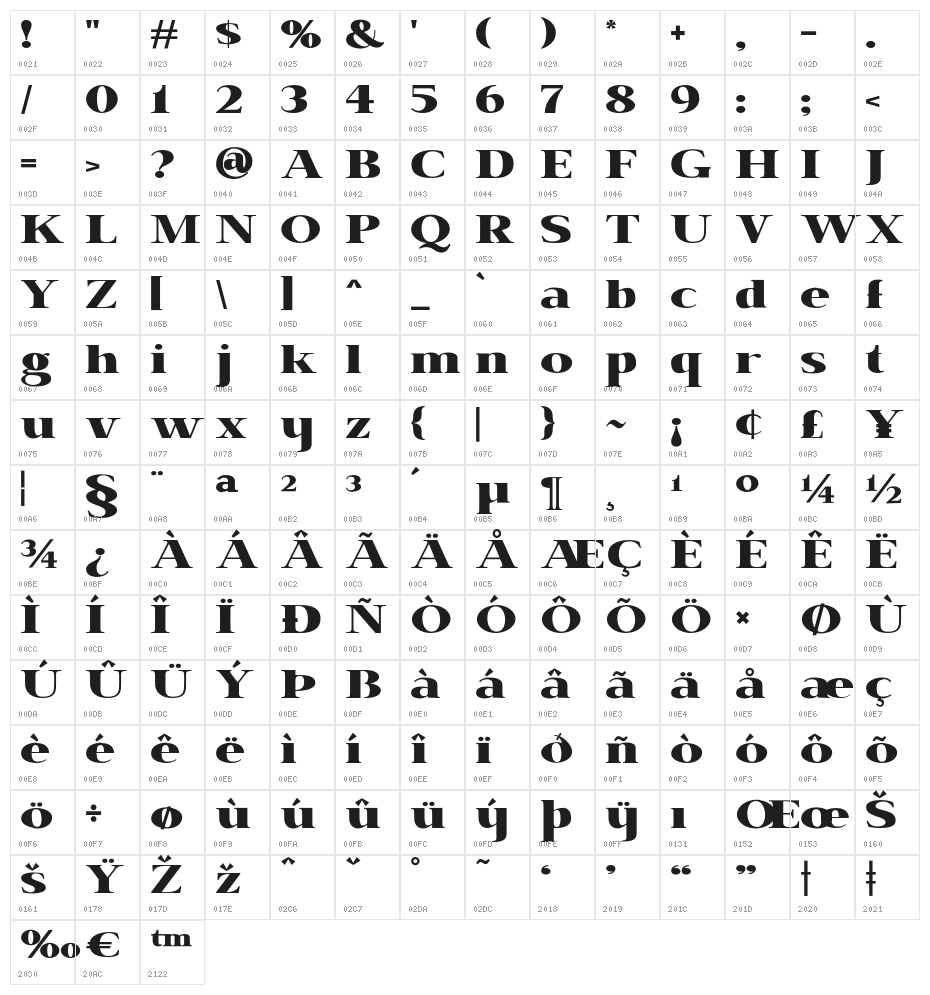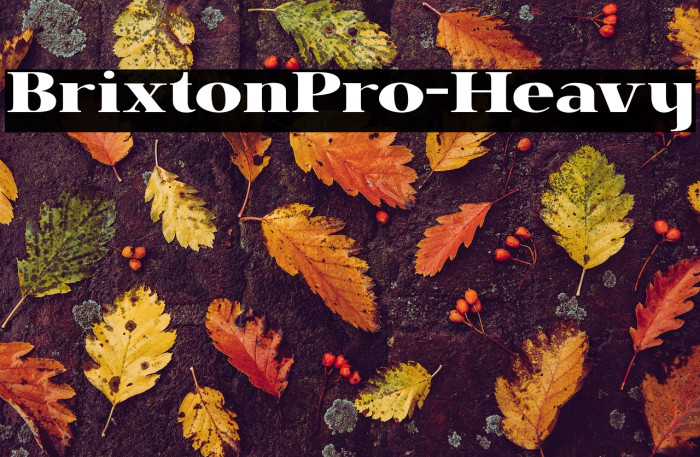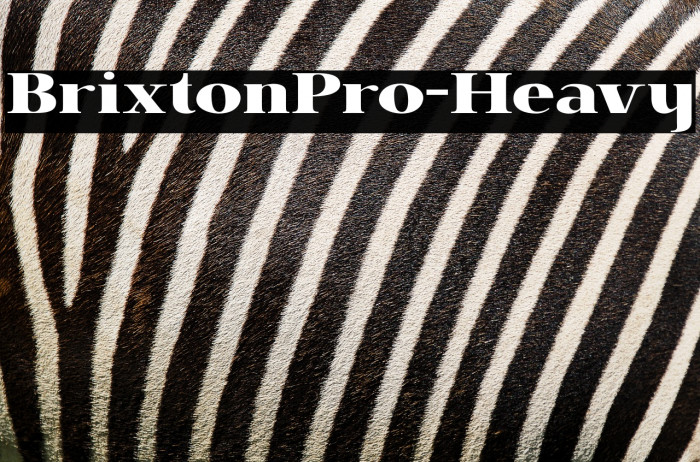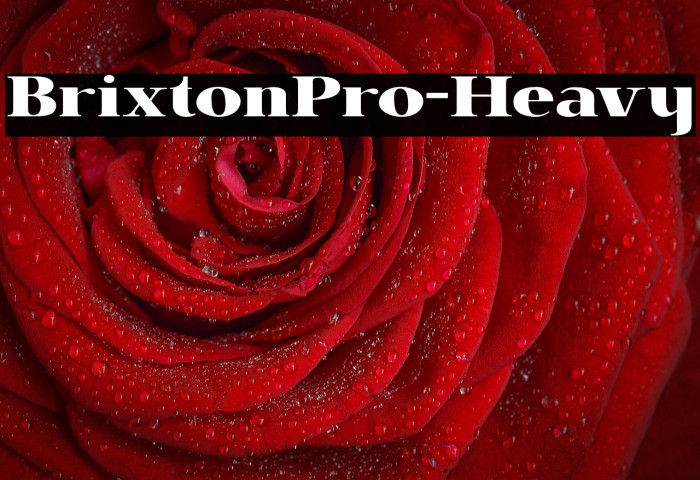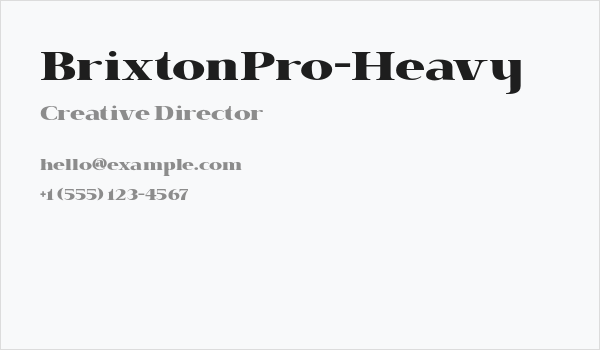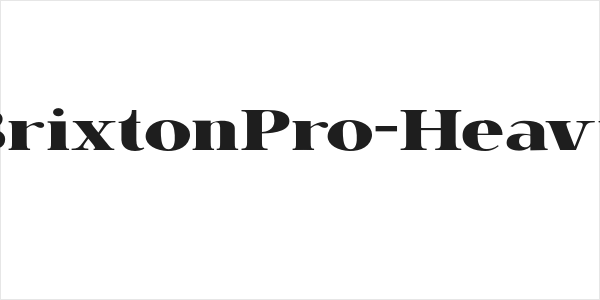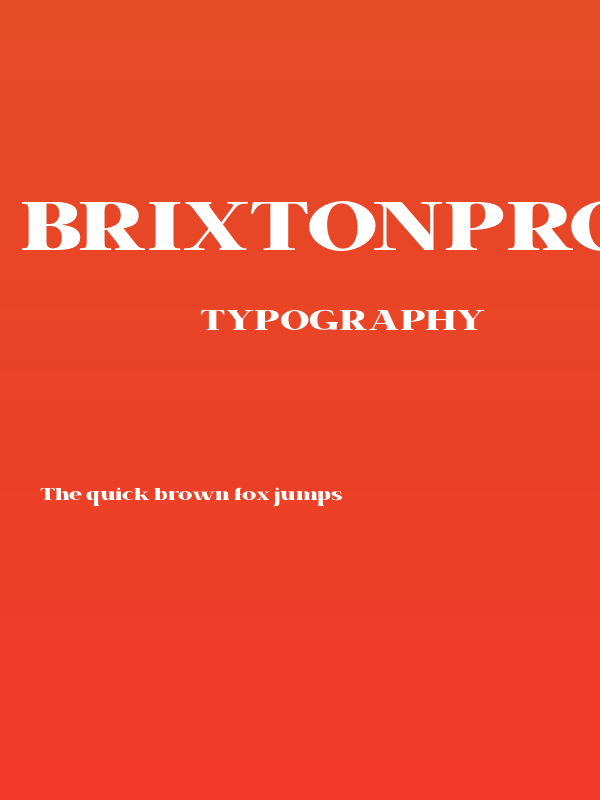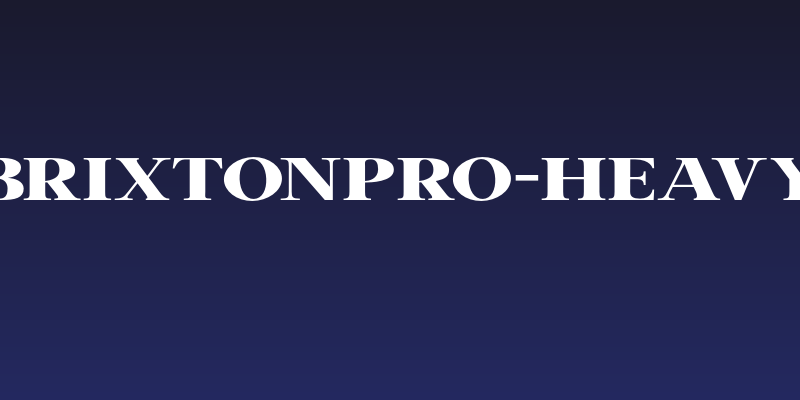
BrixtonPro-Heavy Font
BrixtonPro-Heavy Description
This font exhibits a bold and striking presence with its heavy weight and strong serifs. The characters are well-defined, featuring a high contrast between thick and thin strokes, which adds a dynamic and elegant touch. The uppercase letters are particularly commanding, while the lowercase letters maintain a balanced and cohesive appearance. The numerals are robust and consistent with the overall style, ensuring readability. Special characters are crafted with the same attention to detail, enhancing the font's versatility.
| Use Case | Headlines, Logos, Editorial Design |
| Proposed Projects | Ideal for headlines, branding, and editorial design where a strong, impactful presence is desired. |